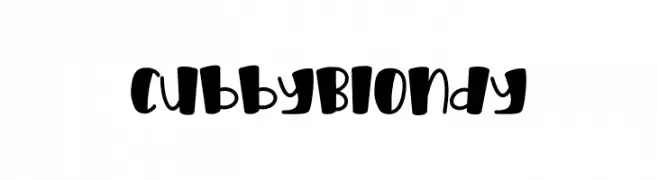
A bold, textured script font with a brush-like, dynamic appearance.
A bold, blocky, and geometric font with a modern industrial style.
A bold, geometric font with strong, angular characters.
A playful, bold font with thick, rounded strokes and a whimsical style.
A bold, rounded font with a playful and retro feel.
A playful, hand-drawn font with characters in tilted squares.
Cartoon character face dingbat font with bold, playful designs.
A bold, geometric font with a digital, tech-inspired design.
A bold, italic, futuristic font with sharp angles and geometric shapes.
A bold, geometric, expanded italic font with a futuristic style.